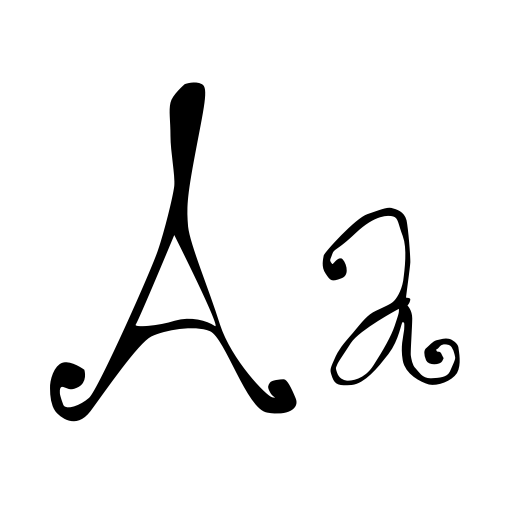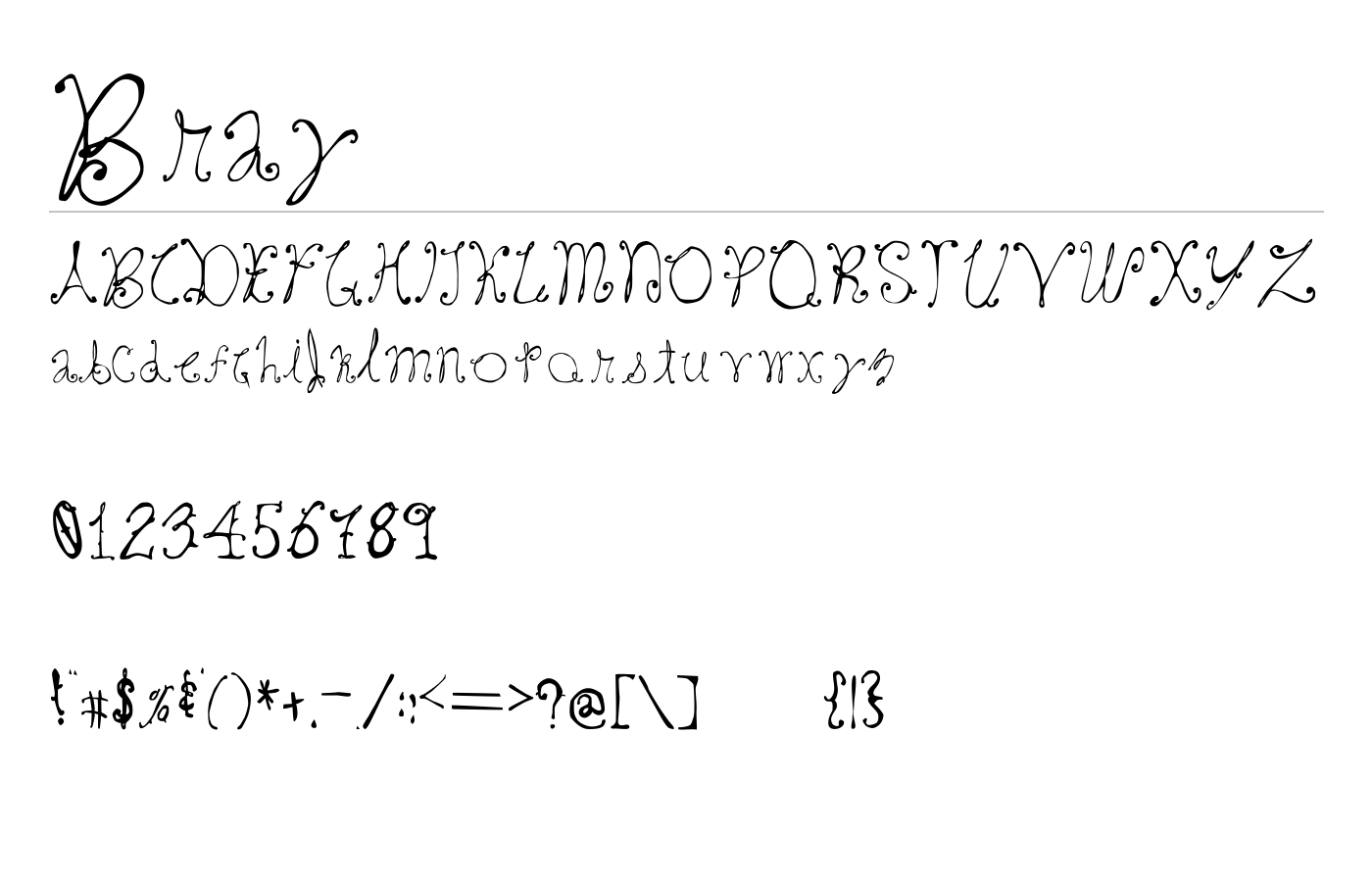
Bray is a whimsical, hand-drawn script font with a playful and artistic flair, characterized by its delicate, thin strokes and decorative swirls on many characters. Its light weight and airy feel make it ideal for creative projects that seek a quirky, elegant touch, such as invitations, greeting cards, or branding for artisanal and boutique businesses. This font’s unique style works best in headline or decorative uses where its intricate details can shine without sacrificing readability.
Bray Font